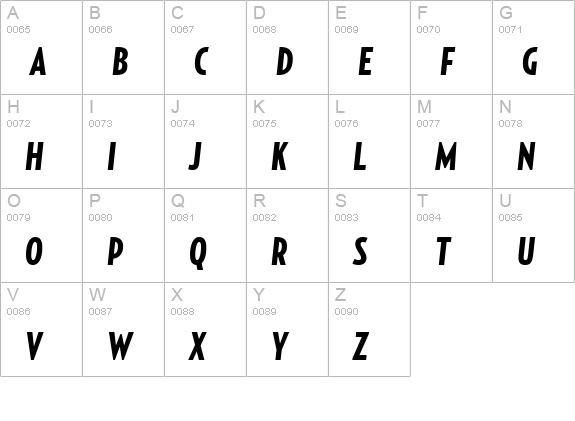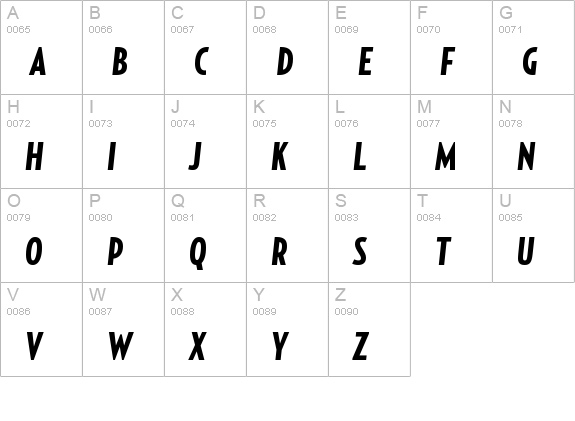
RelayComp-BlackItalic font is a stunning typeface that exudes elegance and sophistication. Its sleek and modern design makes it perfect for a variety of design projects, from branding to editorial layouts. The bold and italicized letters add a touch of drama and flair, making your text stand out on any medium. One of the best features of RelayComp-BlackItalic font is that it is free to download. Yes, you read that right! This incredible font is freely available to download at FontsMarket.com. Whether you are a professional designer or a hobbyist, you can now access this remarkable font without any cost. With RelayComp-BlackItalic font, you can create eye-catching logos, captivating headings, or stylish social media posts. The versatility of this font allows it to be used in various contexts, from fashion magazines to tech websites. Its legibility and unique character make it a great choice for both print and digital applications. The attention to detail in RelayComp-BlackItalic font is evident in every letterform. The strokes are perfectly balanced, creating a harmonious flow throughout the entire typeface. The subtle curves and sharp angles give it a contemporary edge, making it ideal for modern design trends. Whether you are designing a website, creating a poster, or crafting a business card, RelayComp-BlackItalic font is sure to make a statement. Its bold and italicized nature demands attention and adds a touch of sophistication to any project. And the best part is, you can get this amazing font for free at FontsMarket.com. So why wait? Download RelayComp-BlackItalic font today and elevate your designs to the next level.